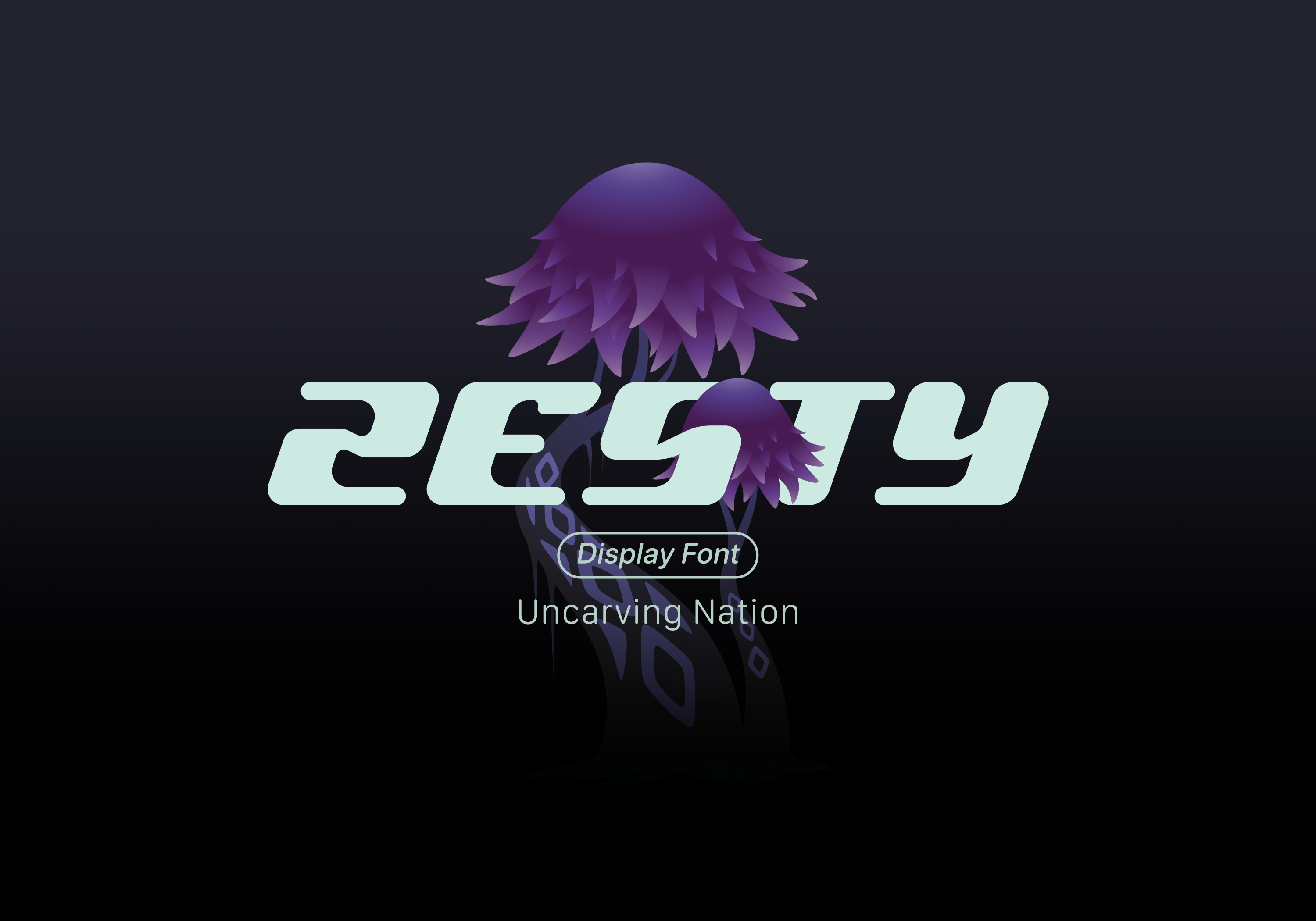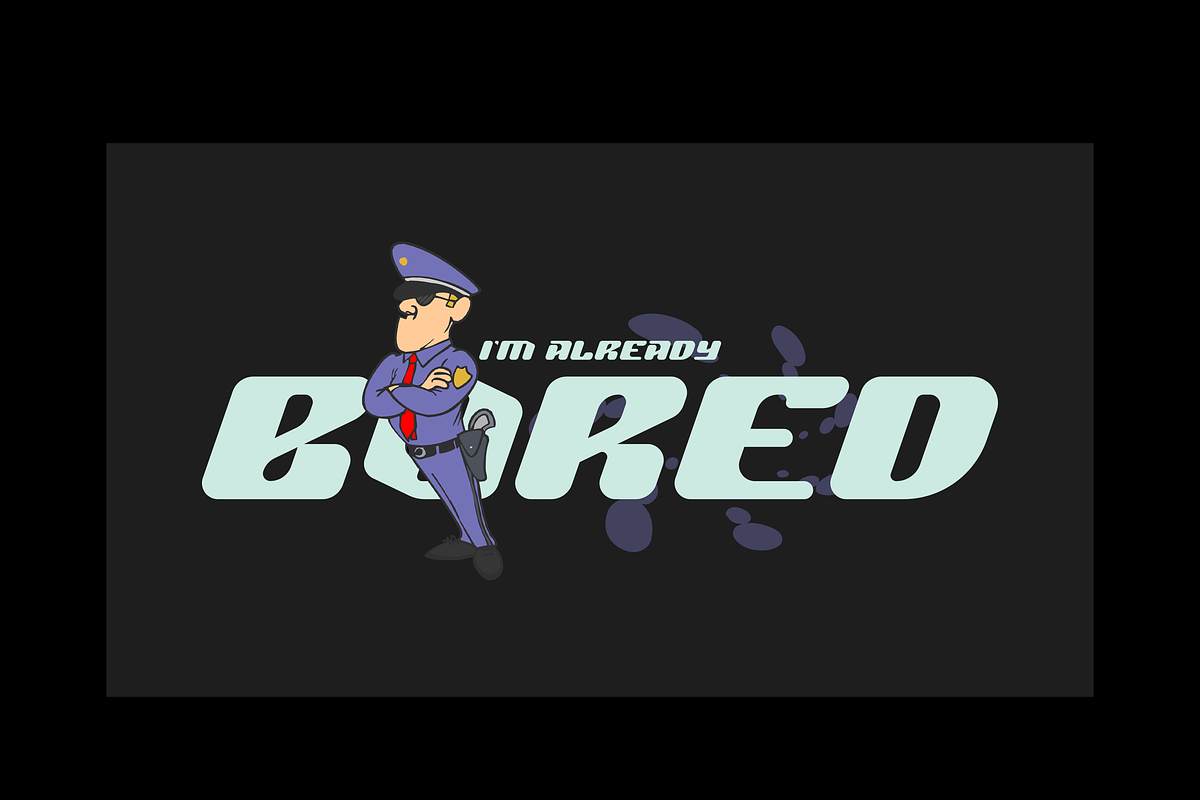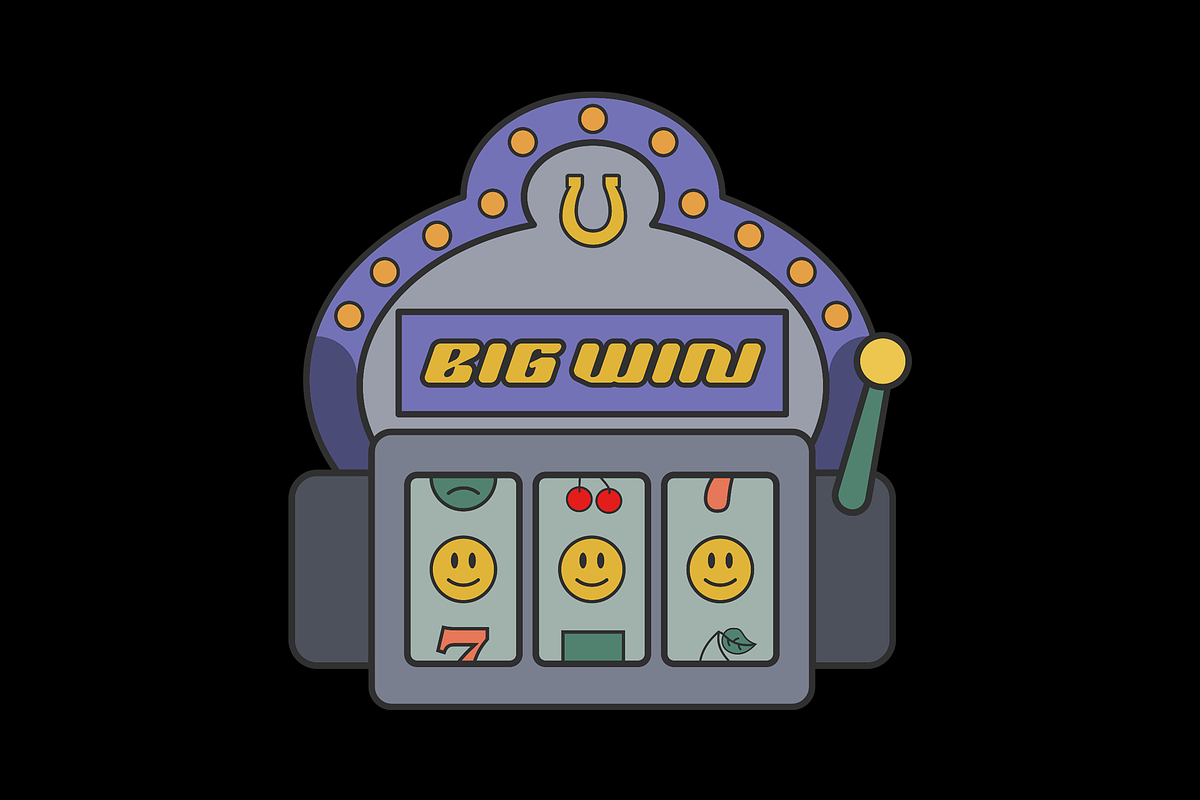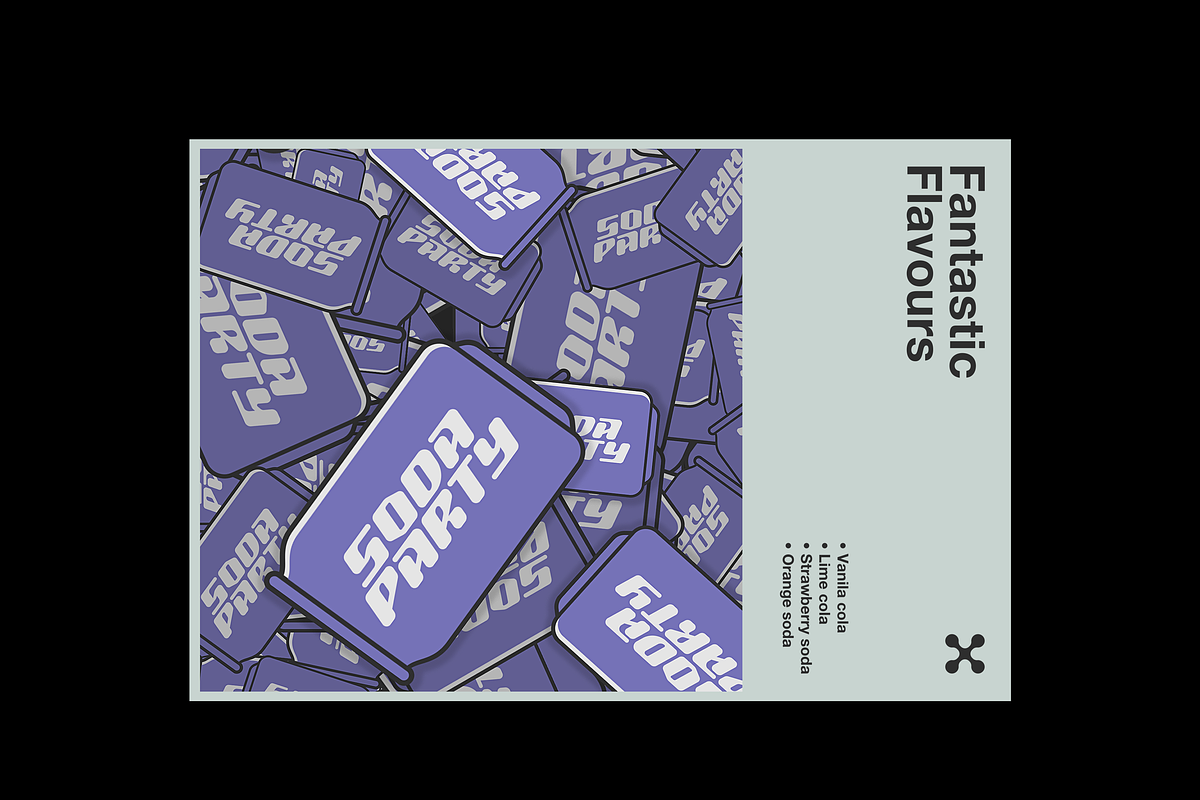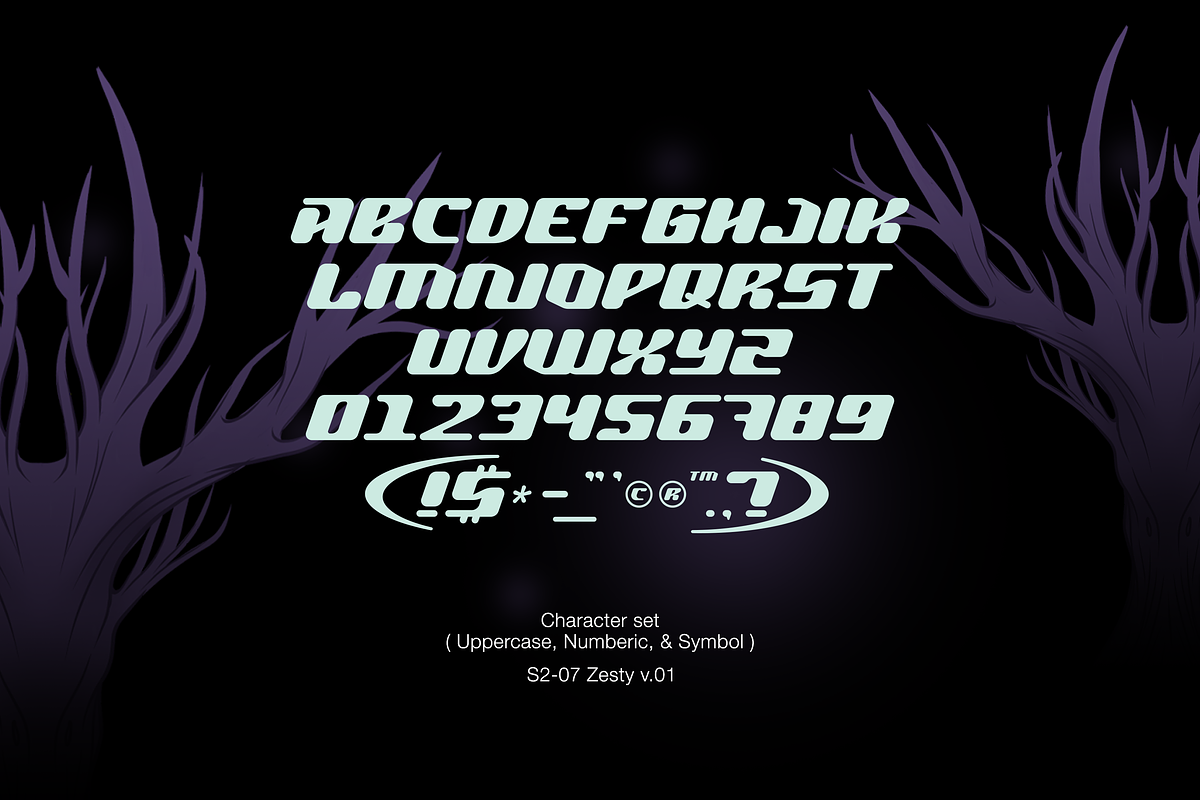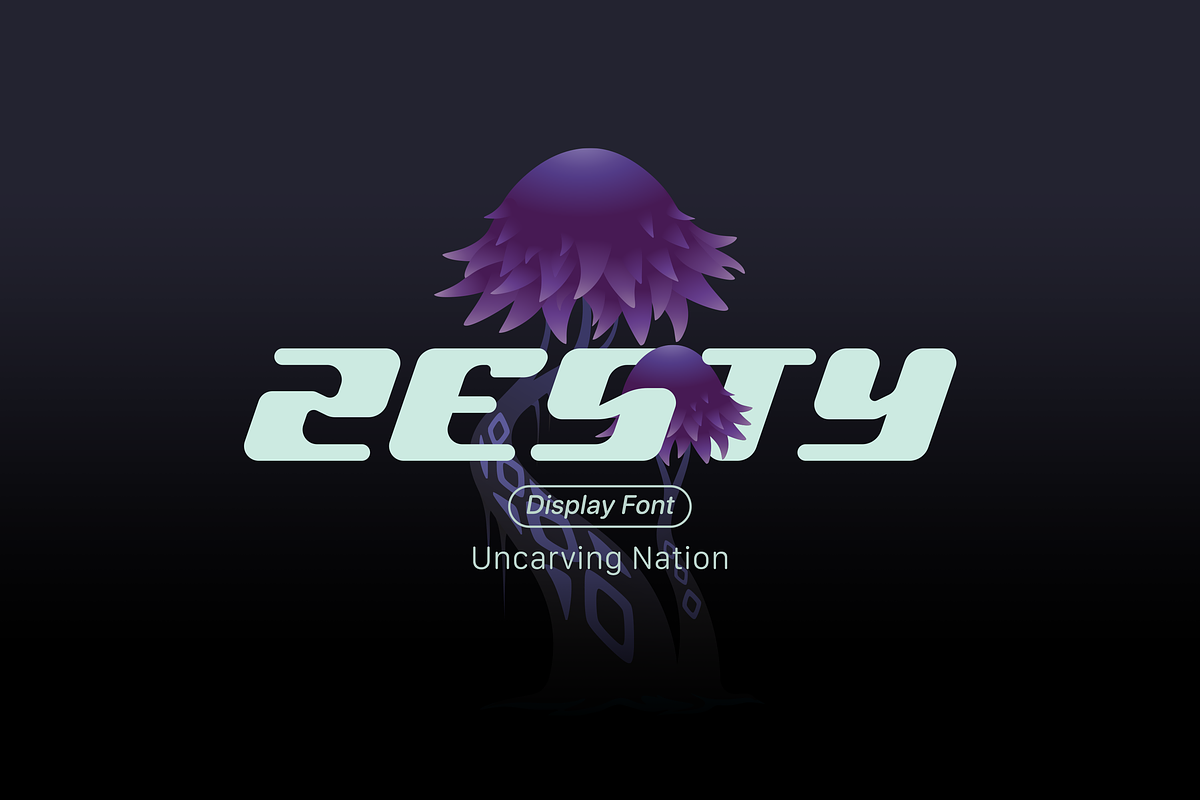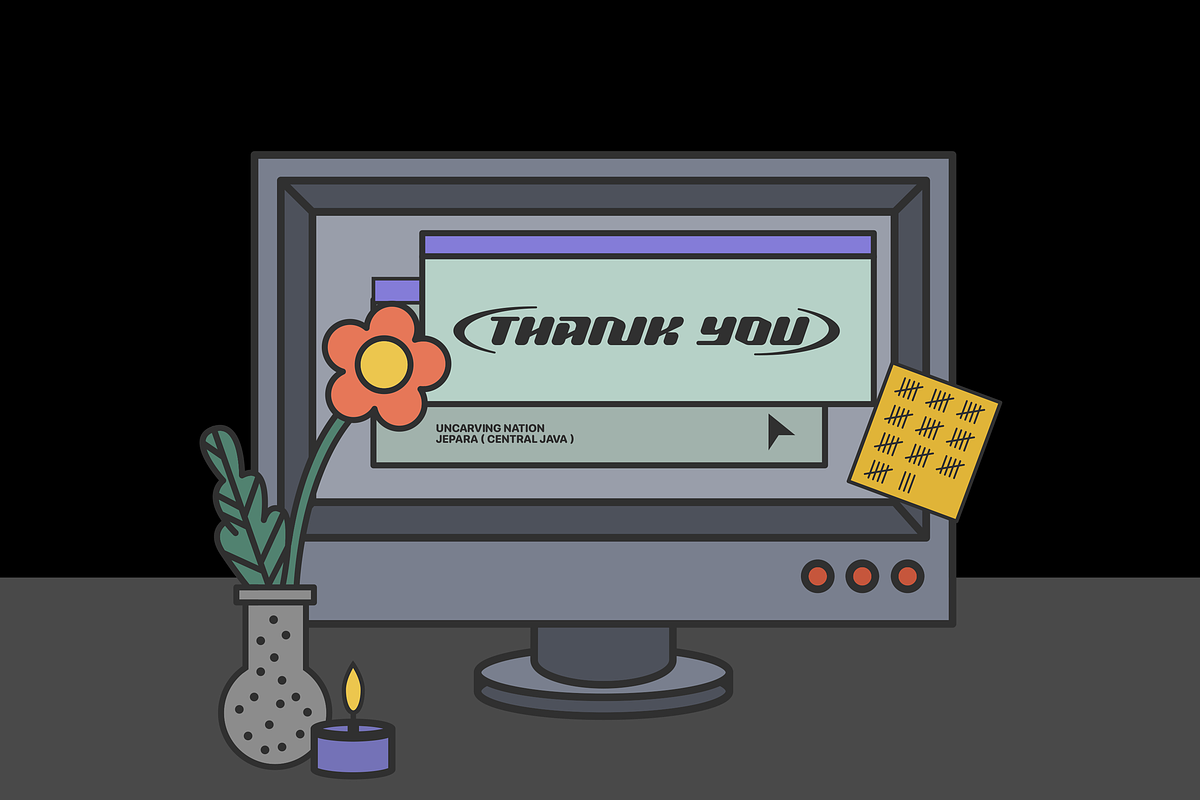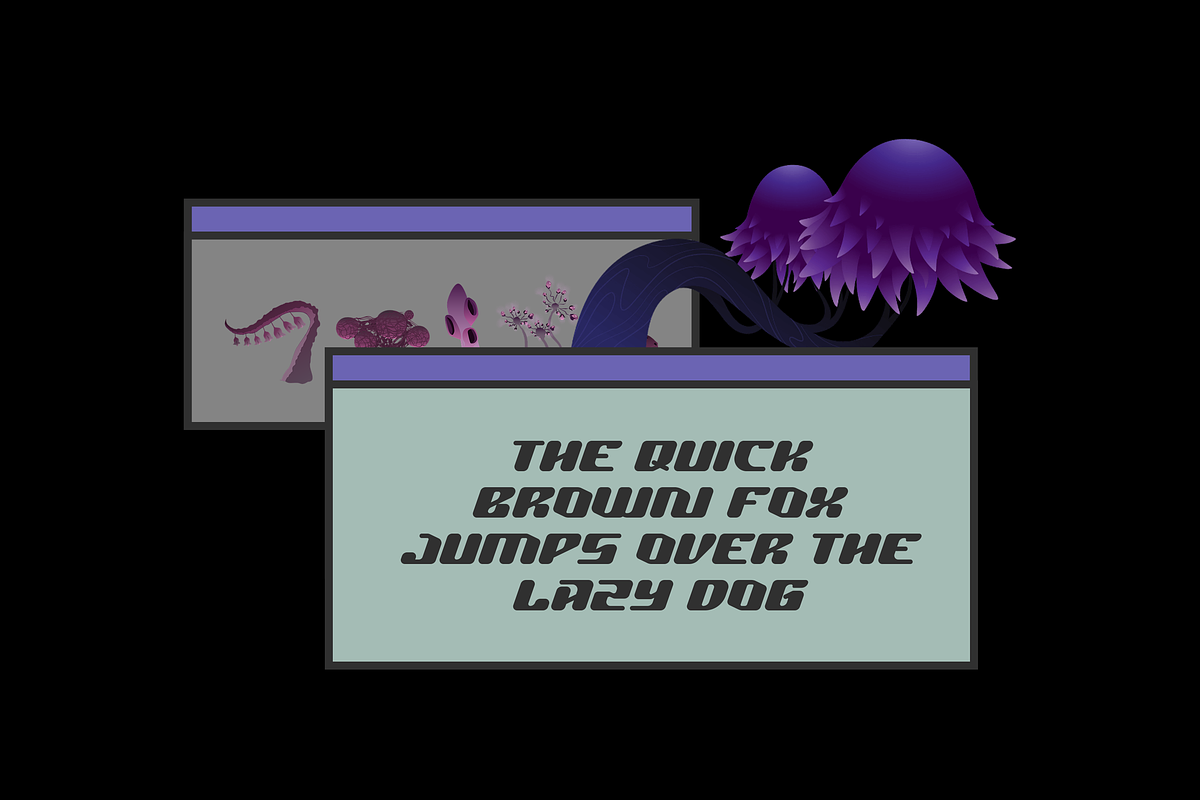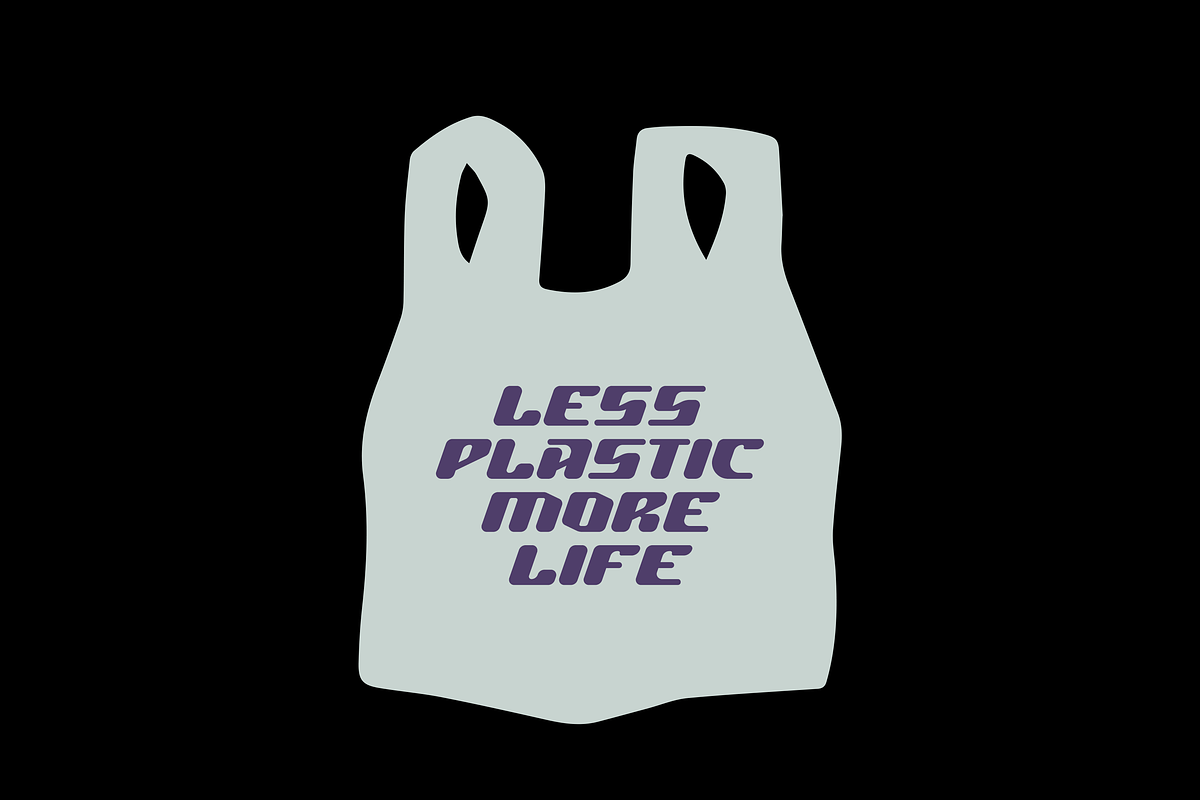
Zesty - Display font
Inspired by the y2k theme with futuristic touch keeping the simplicity and unique shapes. Genesis can be used even for commercial you may not share this font, neither on websites or to other computers,unless uncarvings permission is given.